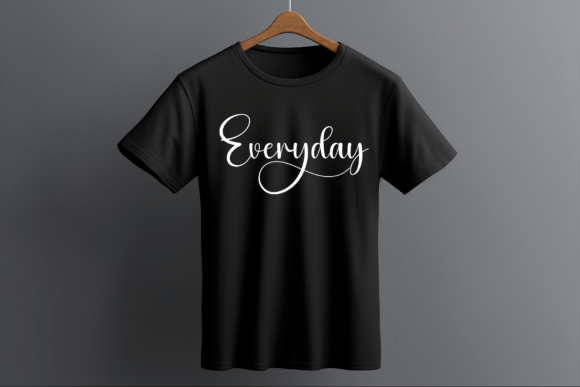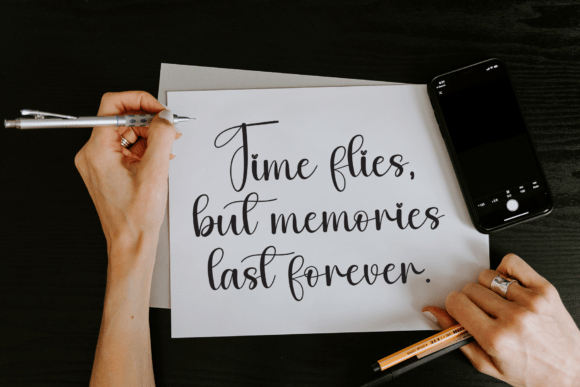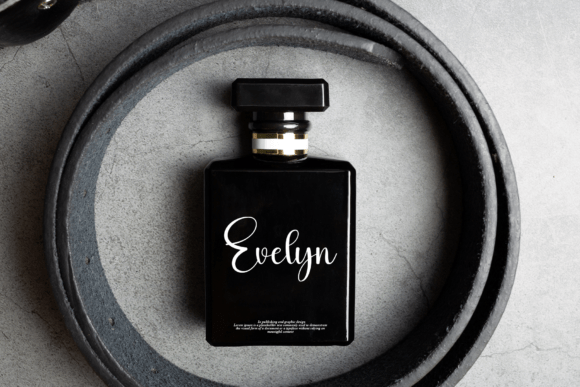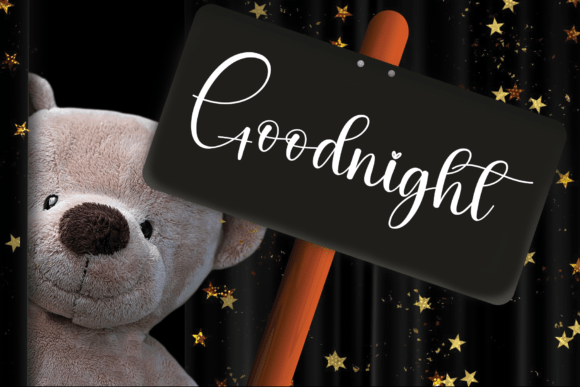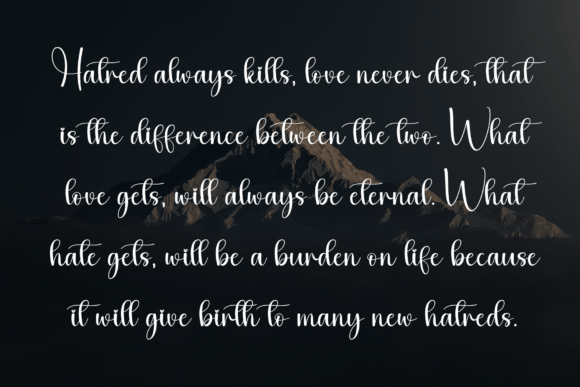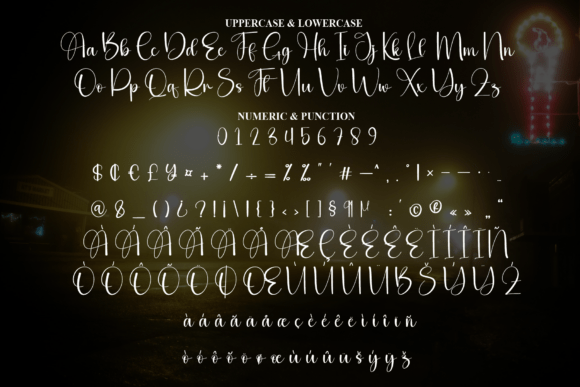
Introduction to Outglow Font Font
Fonts play a crucial role in design, and the Outglow Font font is a typeface that brings both character and versatility to any project. Whether you’re working on a branding project, a website, or a print design, the Outglow Font font offers a unique style that can elevate your work.
Outglow is a luxurious script font with sweeping strokes and delicate loops.
Designed to shine in branding, packaging, and high-end invitations, it captures graceful motion and elegance with every glyph .
Key Features of Outglow Font Font
Why Choose Outglow Font Font?
The Outglow Font font is more than just a typeface – it’s a design tool that helps you communicate your message with style and clarity. Its unique character set and versatile design make it suitable for a wide range of applications, from elegant invitations to bold headlines.
With its carefully crafted letterforms and balanced proportions, the Outglow Font font ensures readability and visual appeal across all mediums.
What makes Outglow Font font special?
The Outglow Font font stands out with its unique design, exceptional readability, and versatility across various design applications.